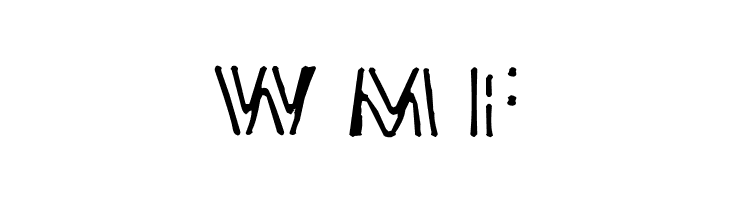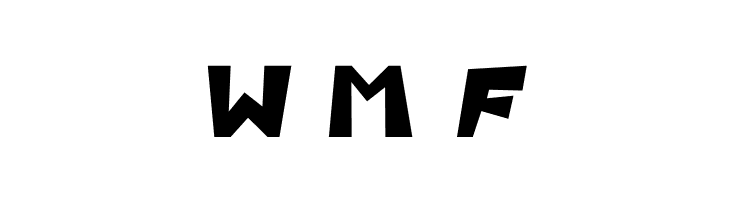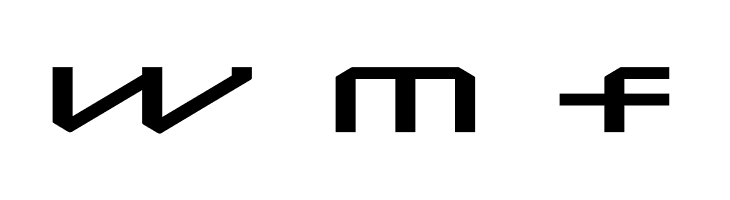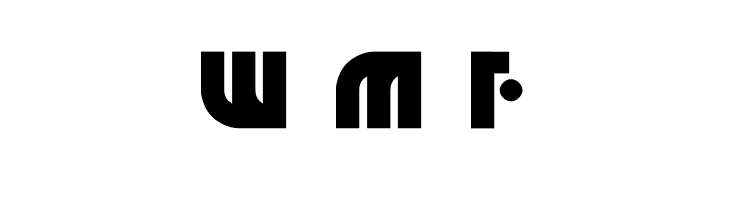
A sleek, elongated font with thin lines and a modern aesthetic.
A modern, elongated font with a sleek and artistic design.
A modern, ultra-thin font with geometric and elongated letterforms.
A bold, geometric font with unique cutouts and rounded edges.
A bold, angular font with a retro gaming aesthetic.
A bold, textured font with a distressed, grunge aesthetic.